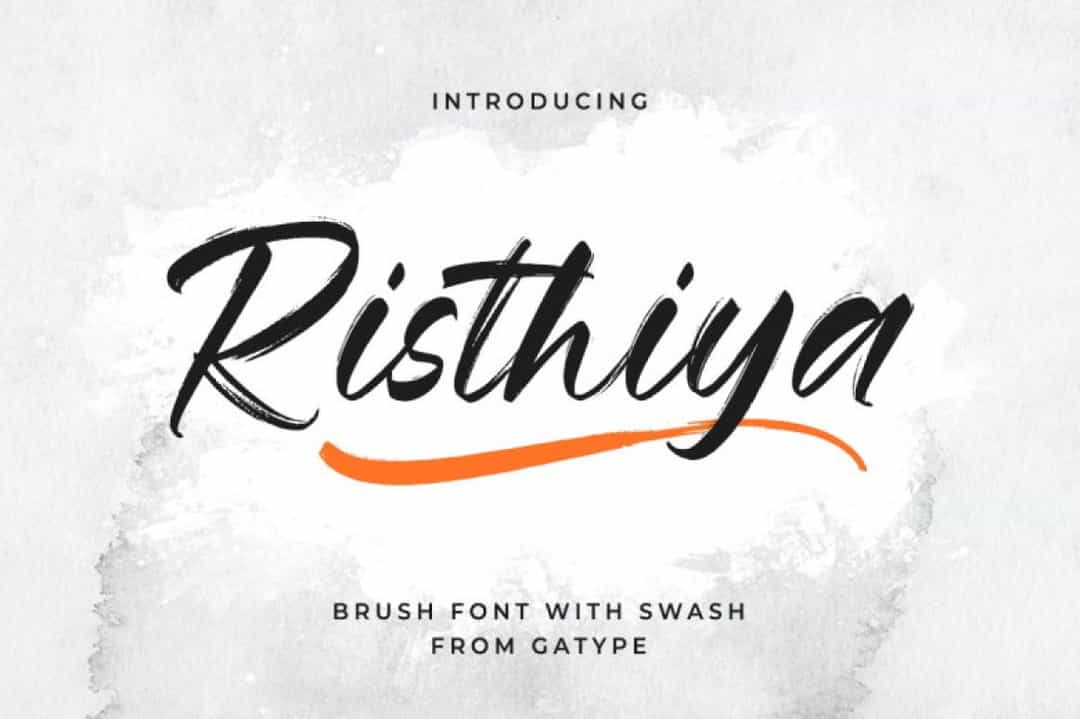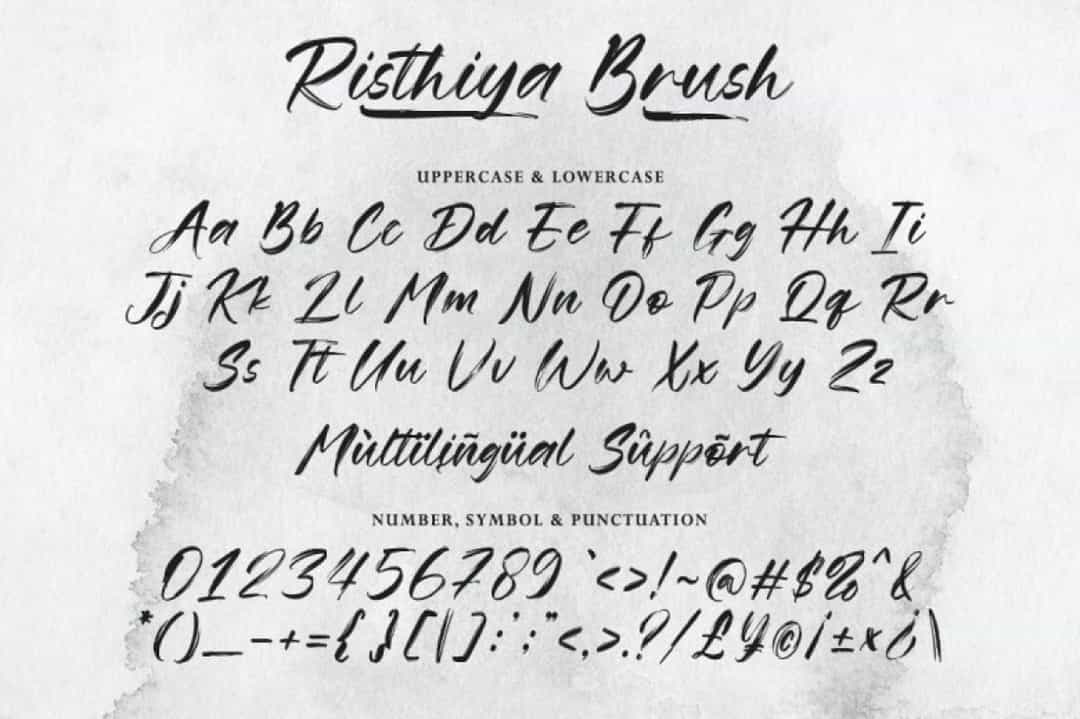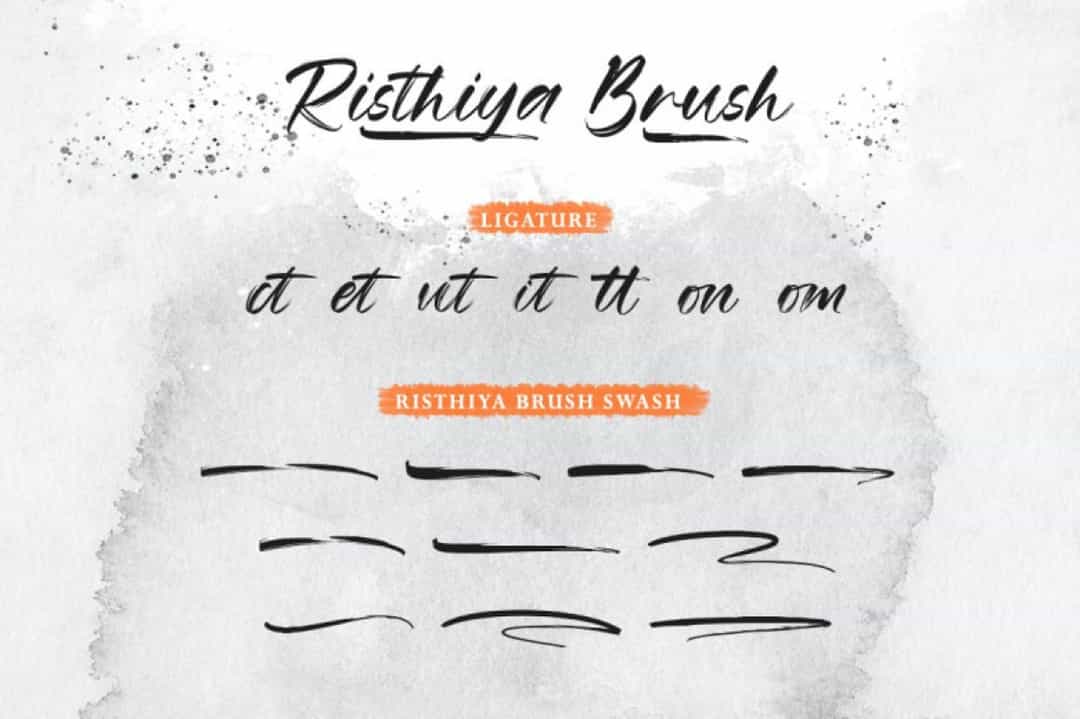
Risthiyais Textured Brush Script Font Modern Approach to Design Handcrafted Natural with an irregular baseline is perfect for title design projects such as apparel, invitations and books, stationery such as quotes branding greeting cards logos t-shirt packaging posters etc. It has an irregular baseline which makes the font an excellent choice.